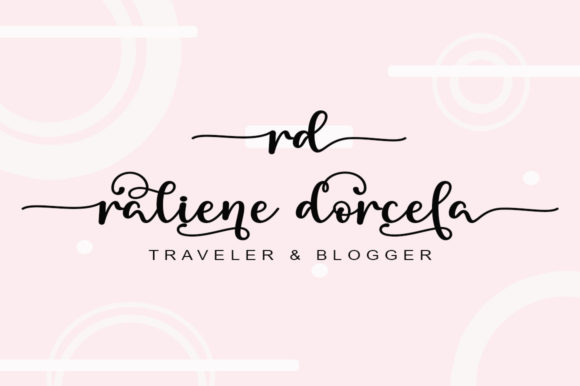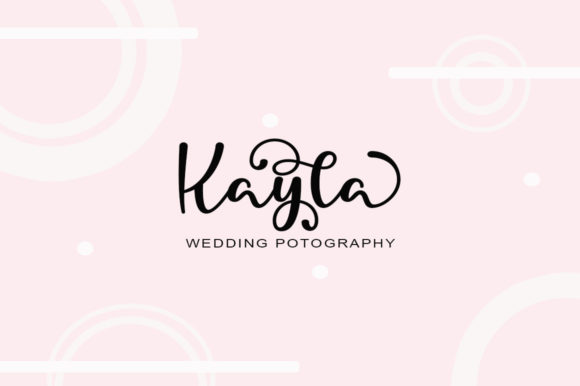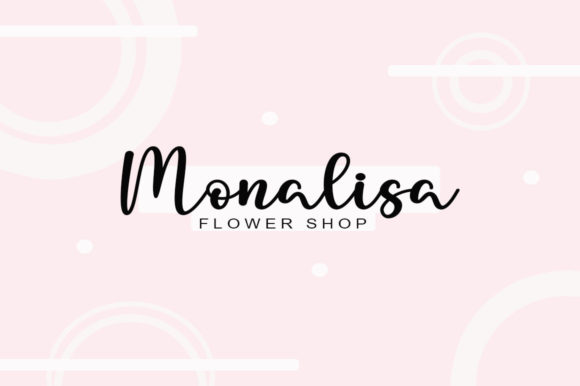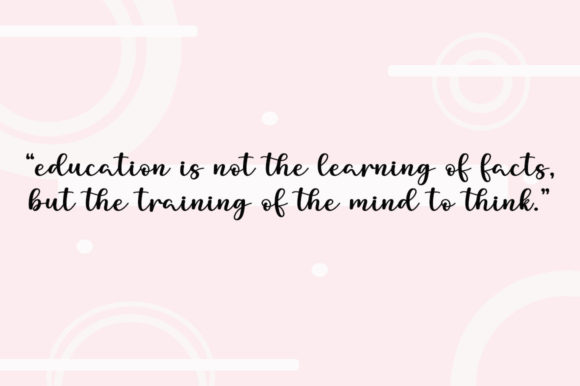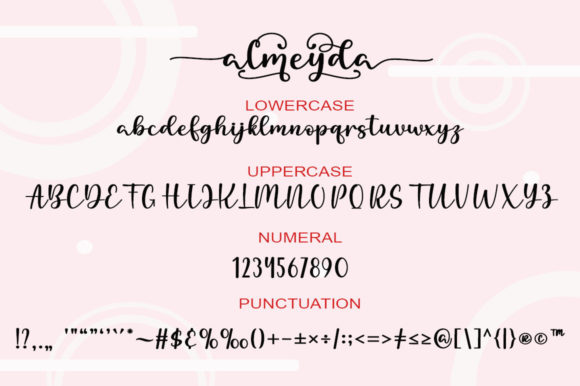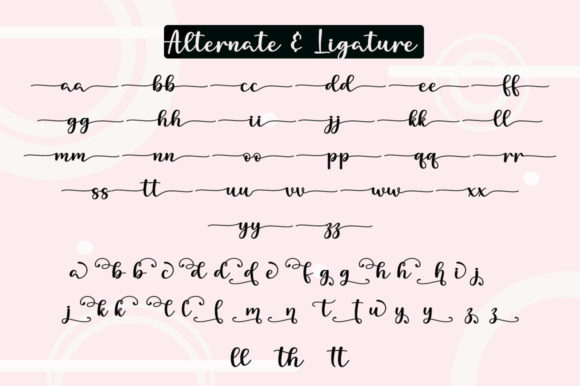
Introducing Almeyda Font: Elegance and Delicacy in Handwritten Form
In the world of typography, few fonts manage to capture the essence of elegance and delicacy as beautifully as Almeyda Font. This stunning handwritten font is designed to bring a touch of sophistication and charm to a wide range of creative projects, from letterheads and titles to stationery and more. With its sweet and delicate swashes, Almeyda Font is sure to appeal to designers and crafters looking for a unique and eye-catching typographic solution.
The Unique Characteristics of Almeyda Font
Almeyda Font stands out from the crowd with its original and intricate design. Each letter is carefully crafted to exude a sense of elegance and refinement, making it perfect for projects that require a touch of luxury and sophistication. The font features beautiful swashes that add a decorative element to your text, allowing you to create stunning titles, headings, and even body text.
One of the key benefits of Almeyda Font is its PUA (Private Use Area) encoding. This means that you can easily access all the glyphs and swashes included in the font, giving you maximum flexibility and creative control. With PUA encoding, you can effortlessly navigate through the font’s extensive character set, including ligatures, alternates, and swashes, to create unique and visually appealing text.
Almeyda Font is incredibly versatile and can be used for a variety of crafty ideas, including:
- Letterheads and Stationery: Add a touch of elegance to your business correspondence with Almeyda Font. Its delicate swashes and refined lettering make it perfect for creating sophisticated letterheads and stationery.
- Titles and Headings: Use Almeyda Font to create stunning titles and headings for your blog posts, articles, or website. Its decorative swashes and elegant lettering will add a touch of luxury to your content.
- Branding and Packaging: Almeyda Font is an excellent choice for branding and packaging projects. Its unique and eye-catching design will help your brand stand out from the competition.
Why Designers and Crafters Love Almeyda Font
Almeyda Font has quickly become a favorite among designers and crafters due to its unique combination of elegance, delicacy, and versatility. Here are just a few reasons why:
- Highly Customizable: With Almeyda Font, you have complete control over the look and feel of your text. Experiment with different swashes, ligatures, and alternates to create a unique typographic style.
- Unique and Eye-Catching: Almeyda Font is designed to stand out from the crowd. Its delicate swashes and elegant lettering make it perfect for creating visually appealing text that grabs attention.
Almeyda Font is a stunning handwritten font that offers a unique combination of elegance, delicacy, and versatility. With its PUA encoding and extensive character set, it’s perfect for designers and crafters looking to add a touch of sophistication and charm to their projects. Whether you’re working on letterheads, titles, stationery, or branding and packaging, Almeyda Font is an excellent choice. So why wait? Discover the beauty of Almeyda Font and take your creative projects to the next level.